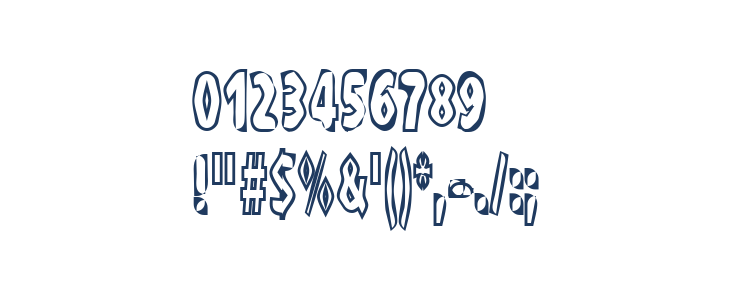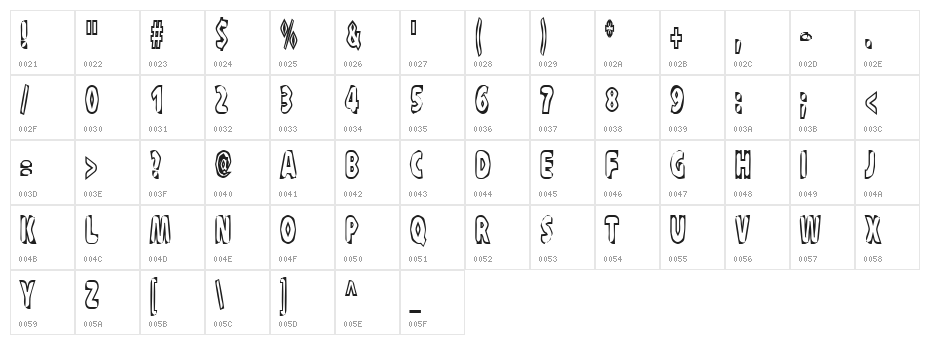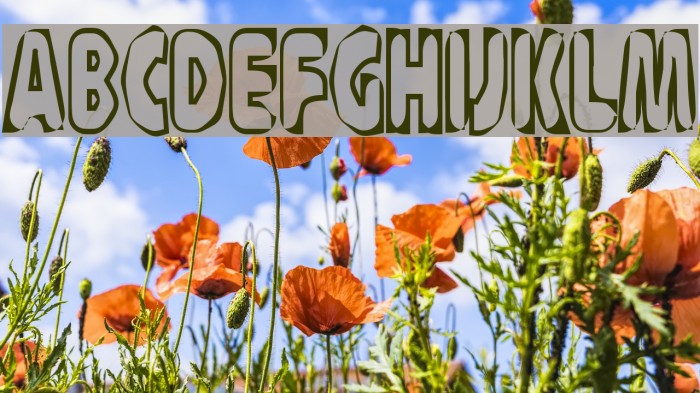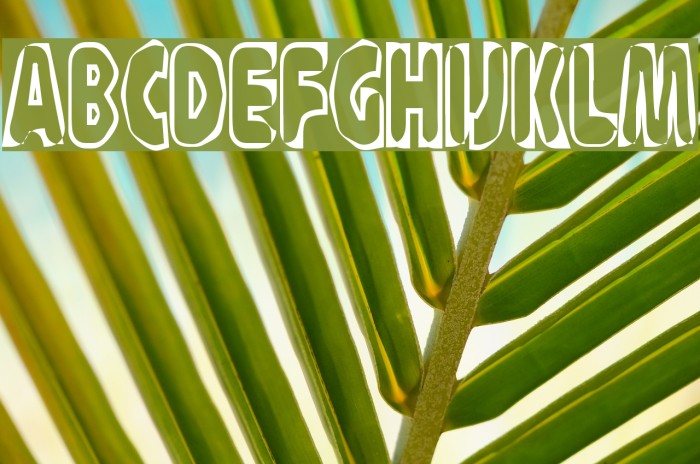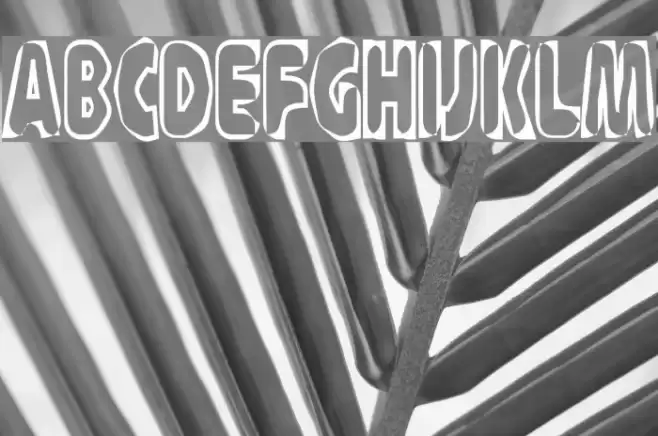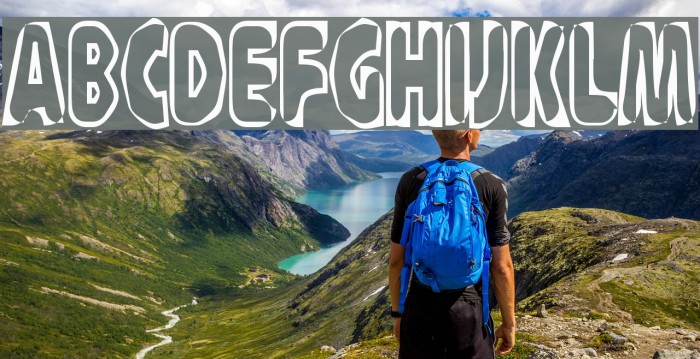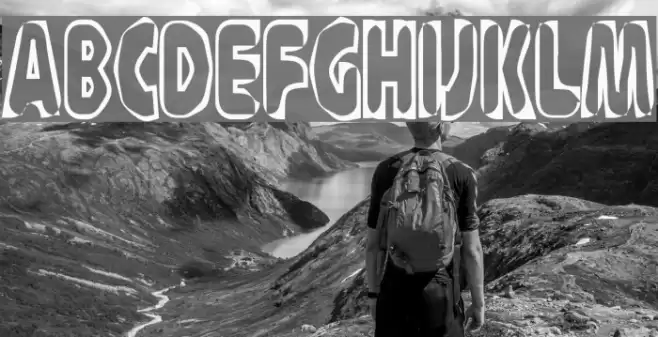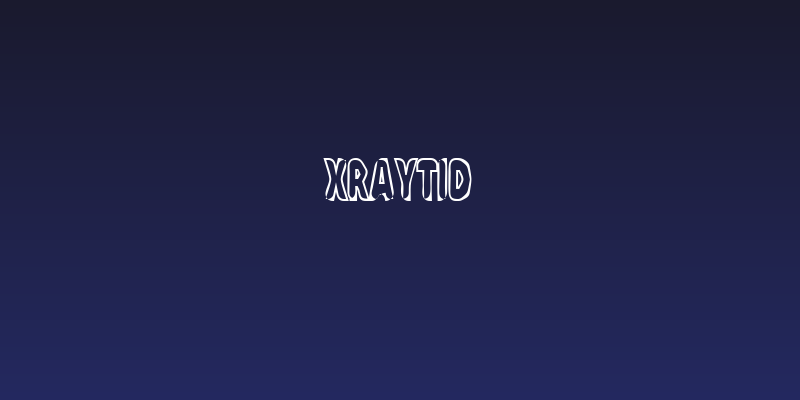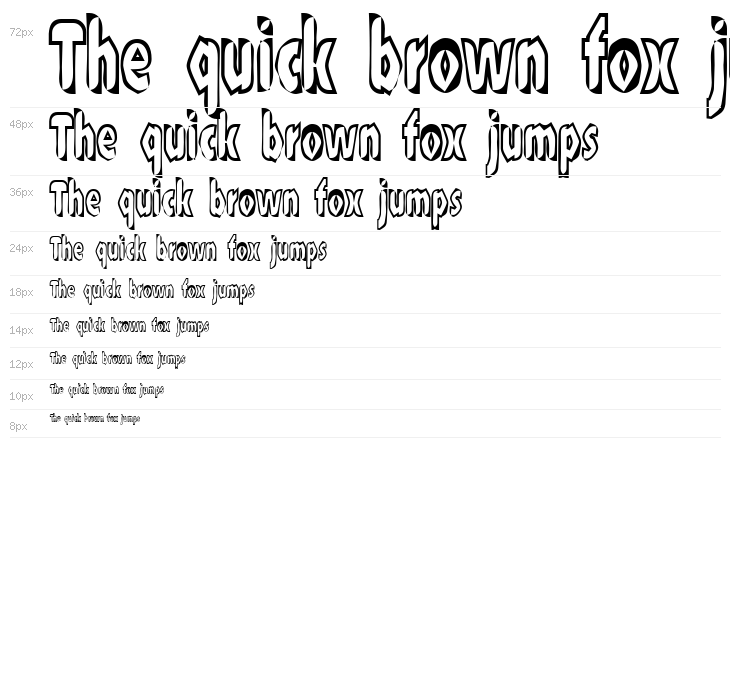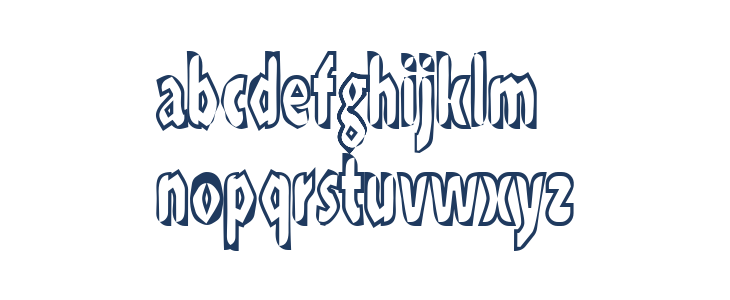
XRaytid Font
XRaytid Description
This font features a bold and playful design with a three-dimensional effect, achieved through a shadow that gives depth to each character. The letters are rounded and slightly irregular, adding a whimsical and dynamic feel. The uppercase and lowercase letters maintain a consistent style, with the lowercase being slightly more compact. Numbers and special characters follow the same design principles, ensuring uniformity across all elements. The font's unique style makes it stand out, ideal for projects that require a fun and engaging visual impact.
| Overall Style | Playful, Decorative |
| Proposed Projects | Ideal for children's books, comic strips, playful branding, posters, and creative advertising. |